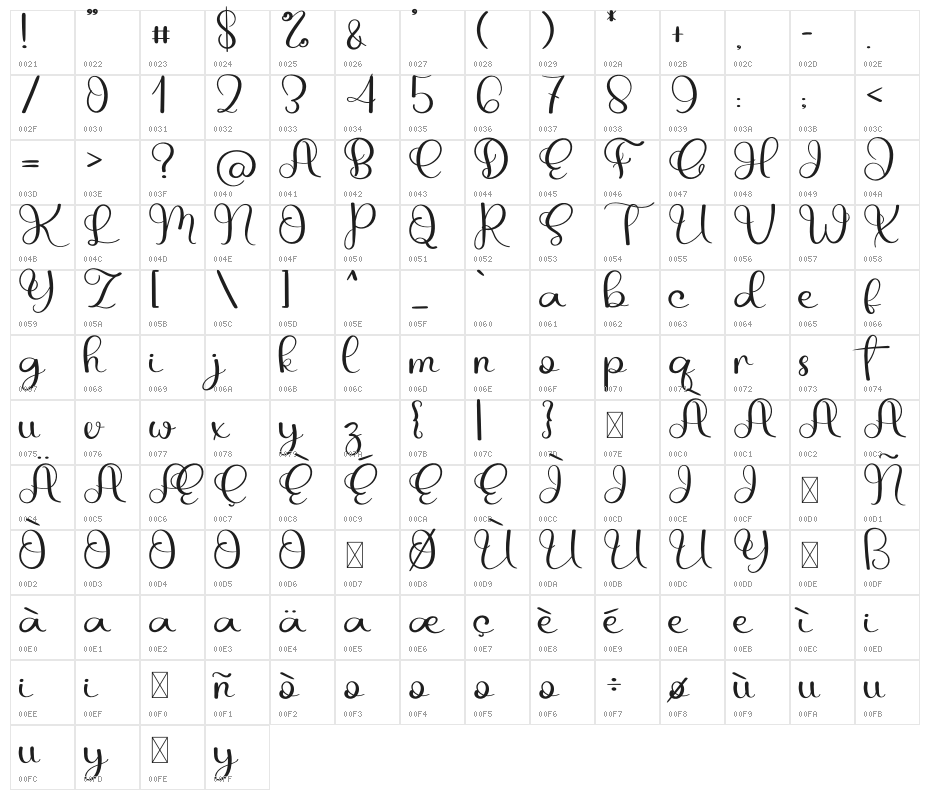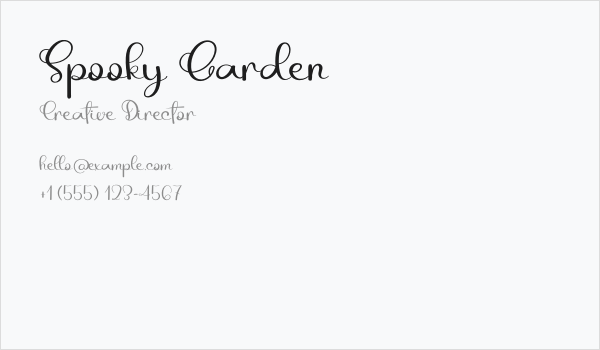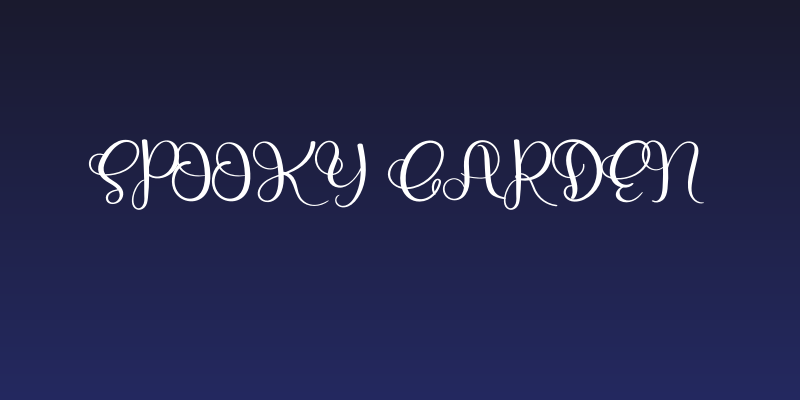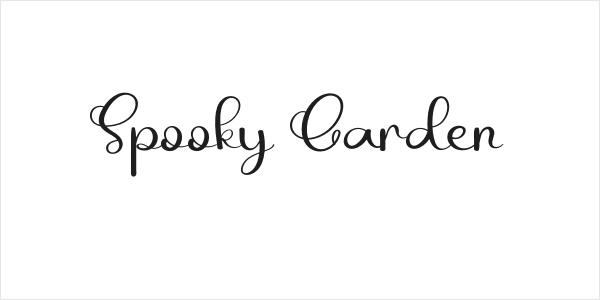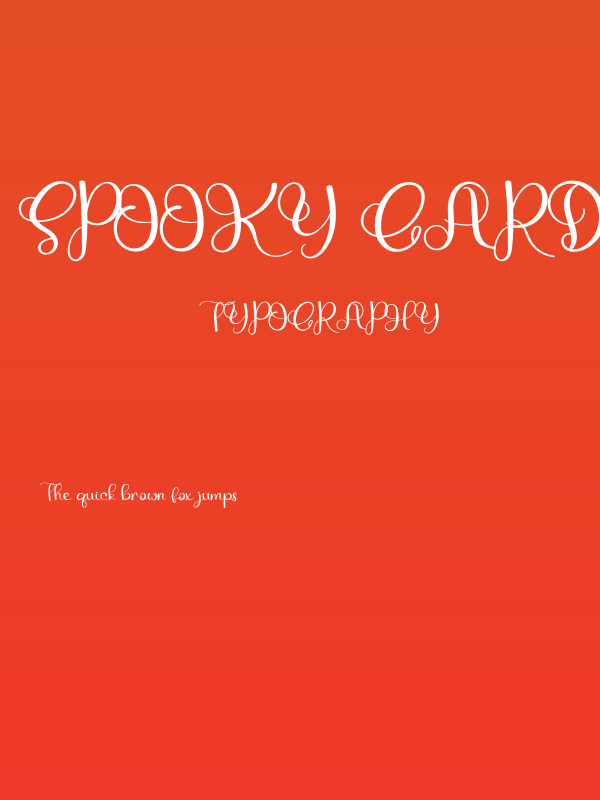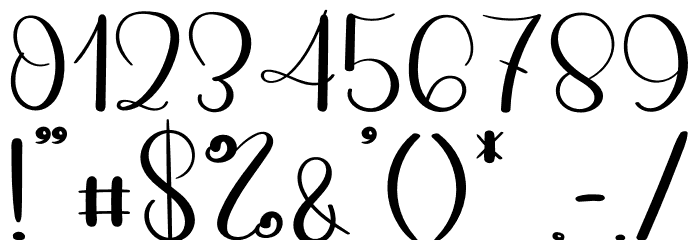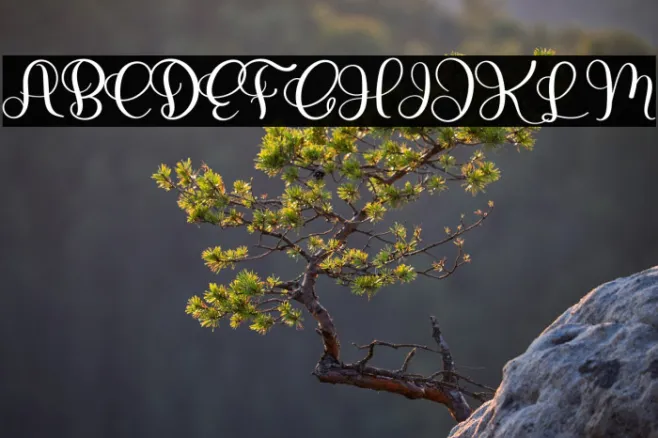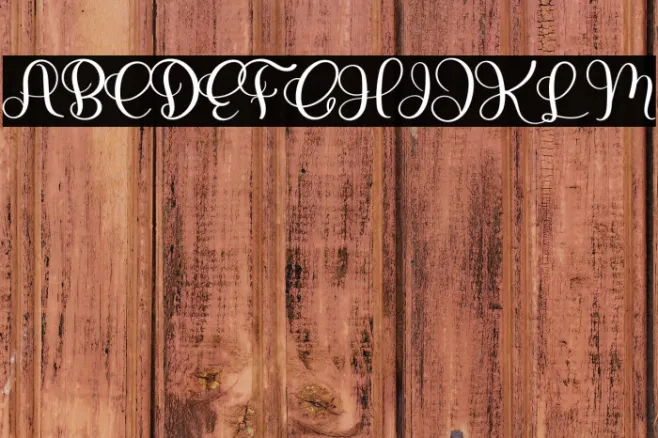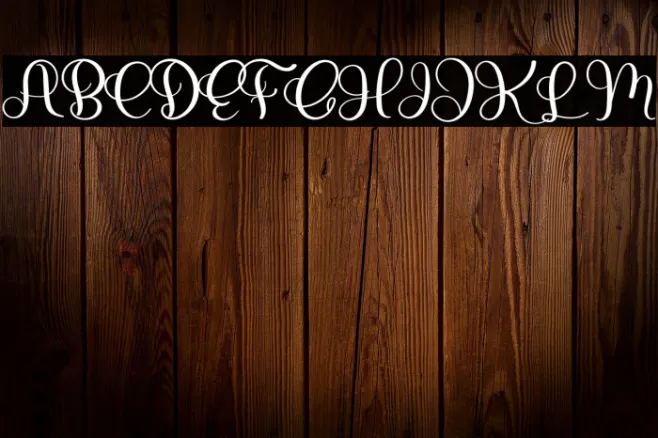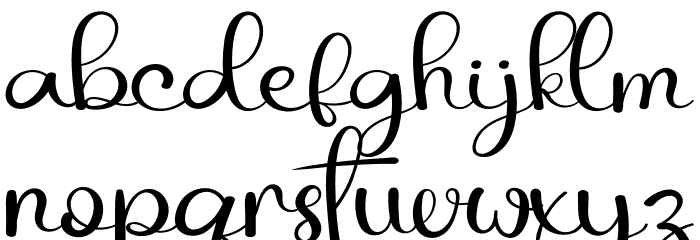
Spooky Garden Font
Spooky Garden Description
This font features a whimsical and playful script style with a hand-drawn appearance. The uppercase letters are characterized by their looping, interconnected strokes, giving them a lively and dynamic feel. The lowercase letters maintain a consistent flow, with some letters extending below the baseline, adding to the font's charm. The numerals are rounded and maintain the playful aesthetic, while the special characters are creatively integrated into the overall design. This font is perfect for projects that require a touch of personality and creativity.
| Proposed Projects | Ideal for greeting cards, invitations, playful branding, and creative posters. |